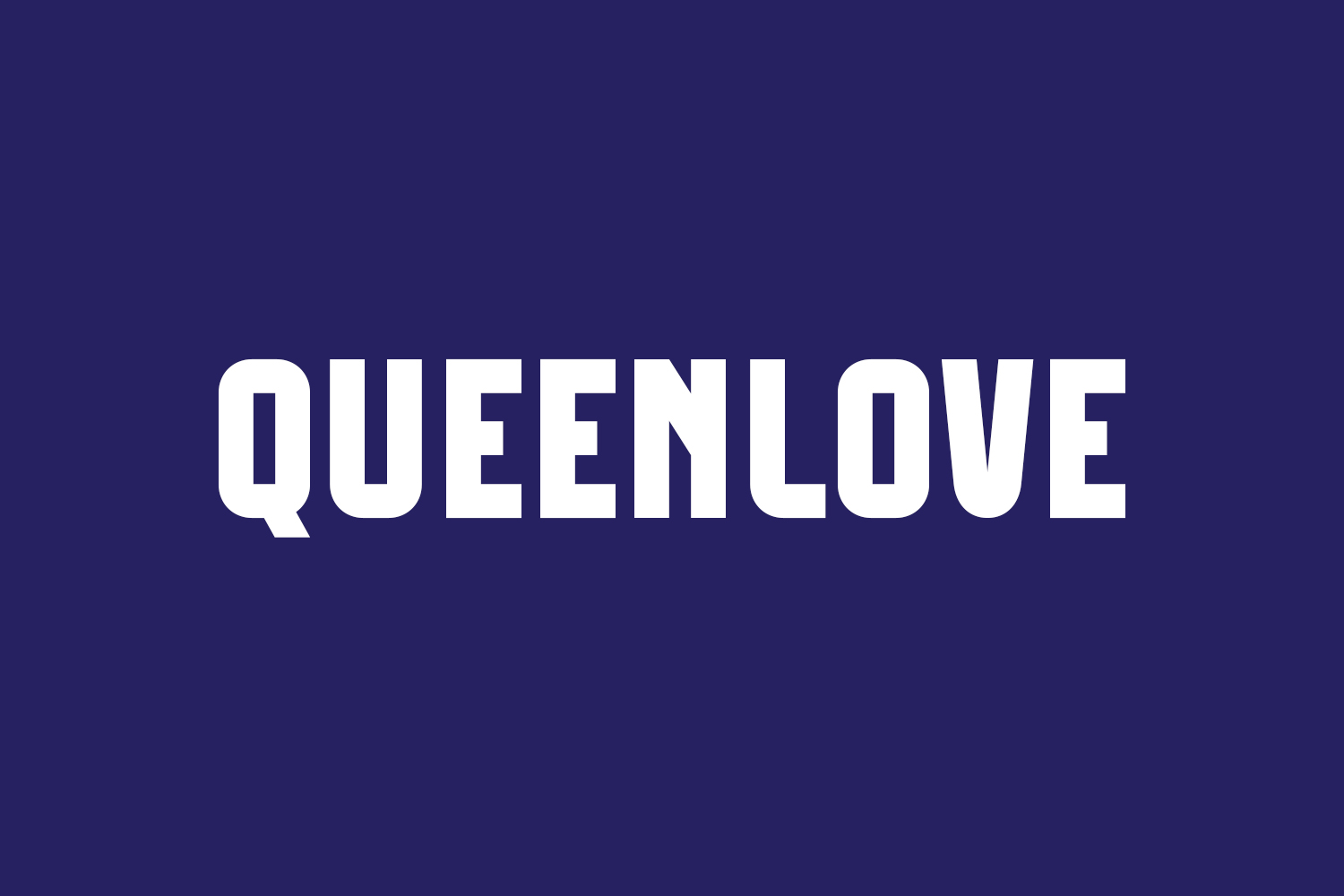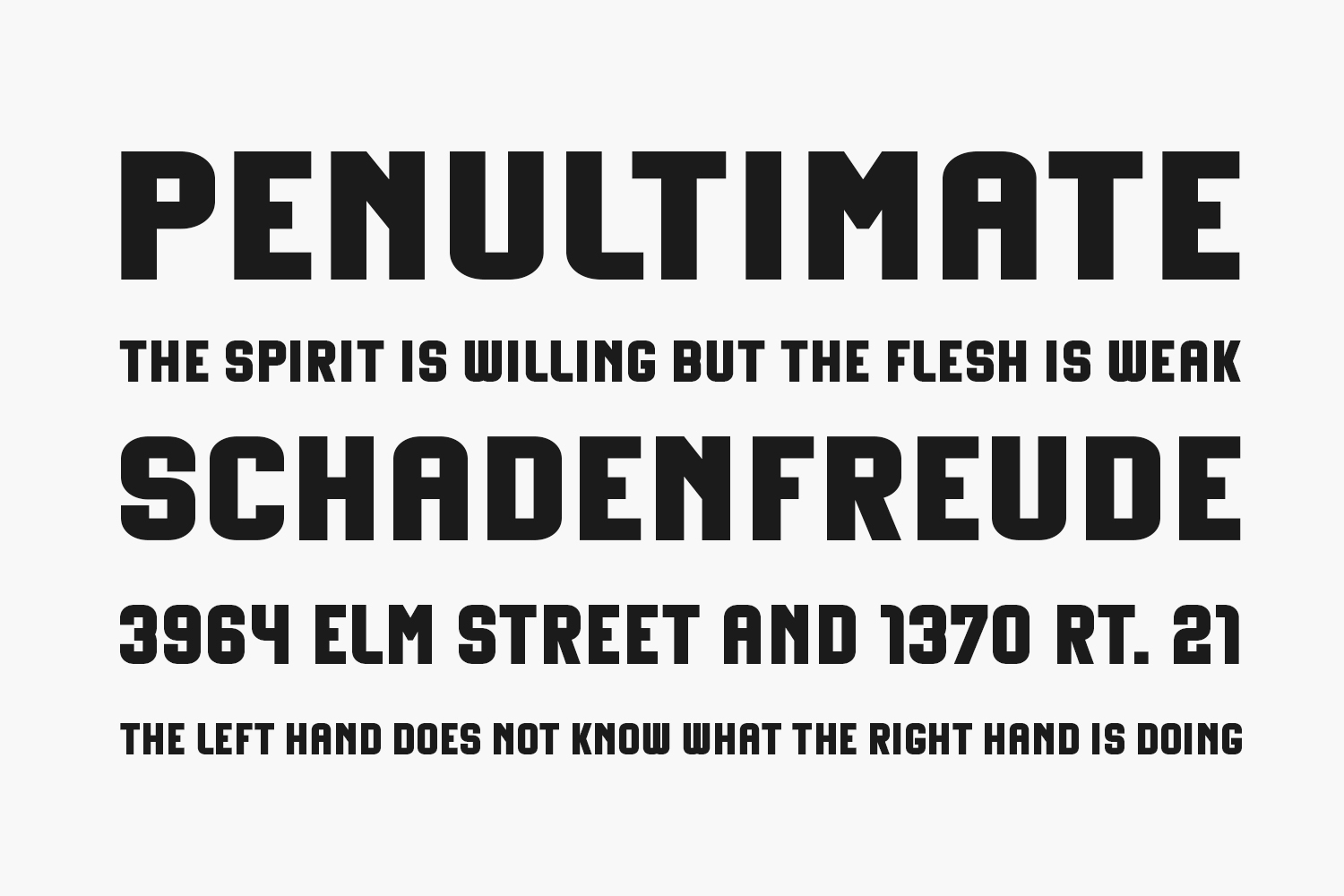
Experience the contemporary allure of Queenlove Free Font, a bold sans-serif font that exudes modernity. With its perfectly balanced and distinctive letters, this font stands out as a masterpiece in design. Fall in love with its remarkable versatility and unleash its potential to craft stunning and spectacular designs. Queenlove Free Font was designed by BrandSemut and is free for personal use only. Please purchase the full version for commercial use.